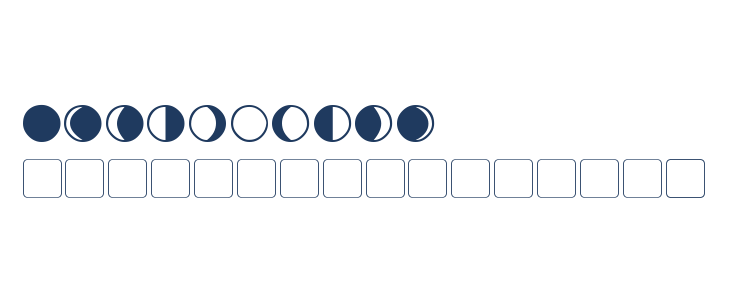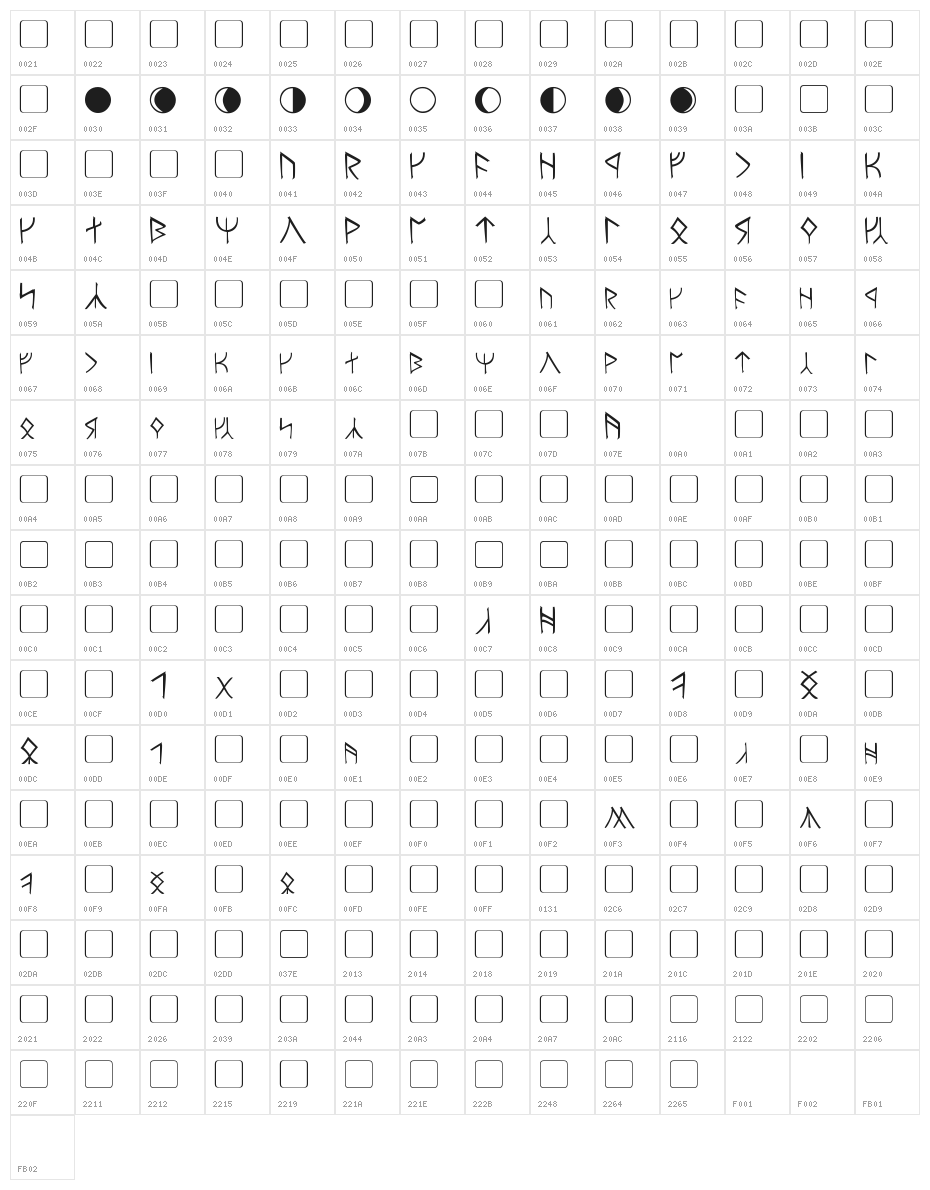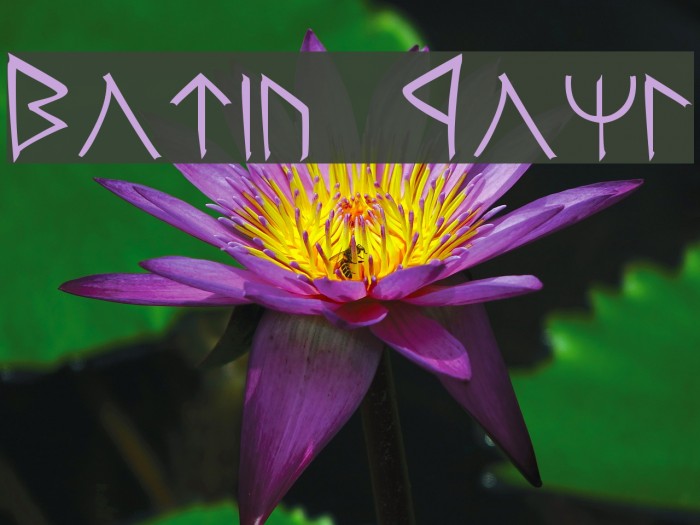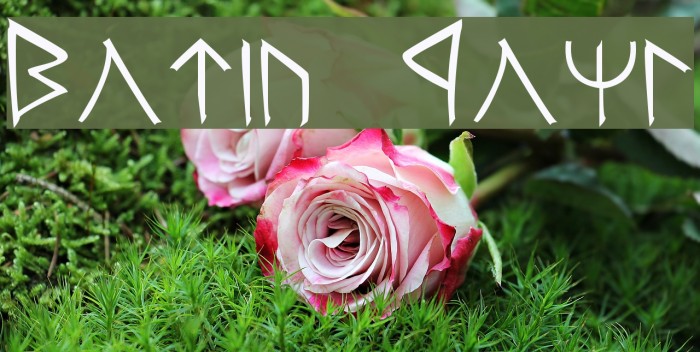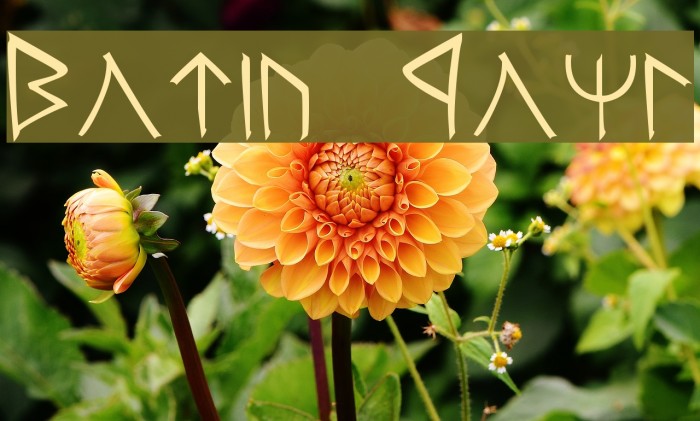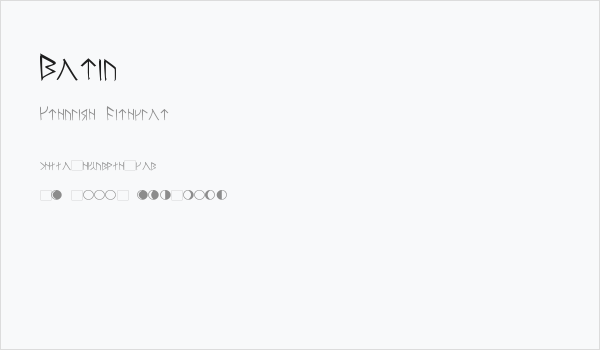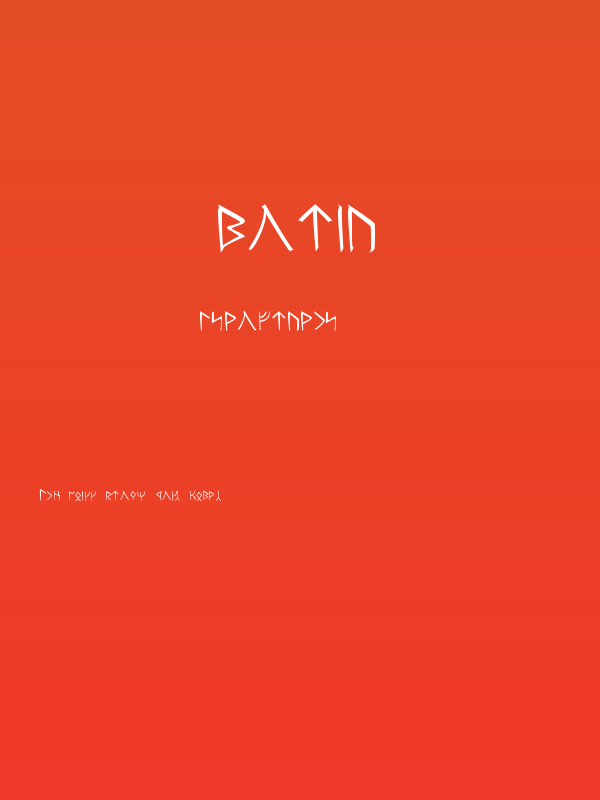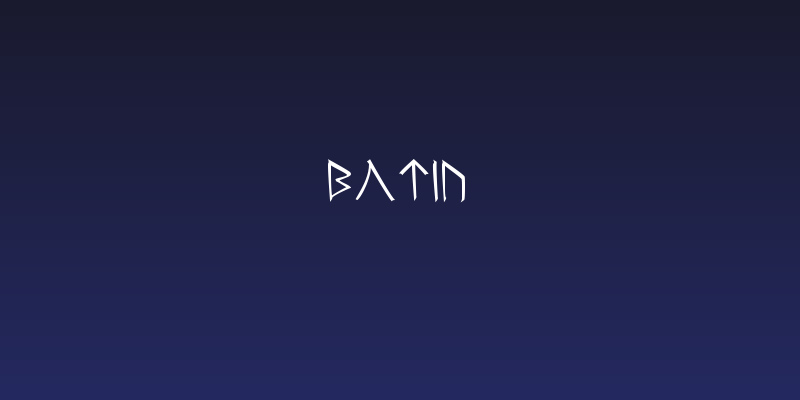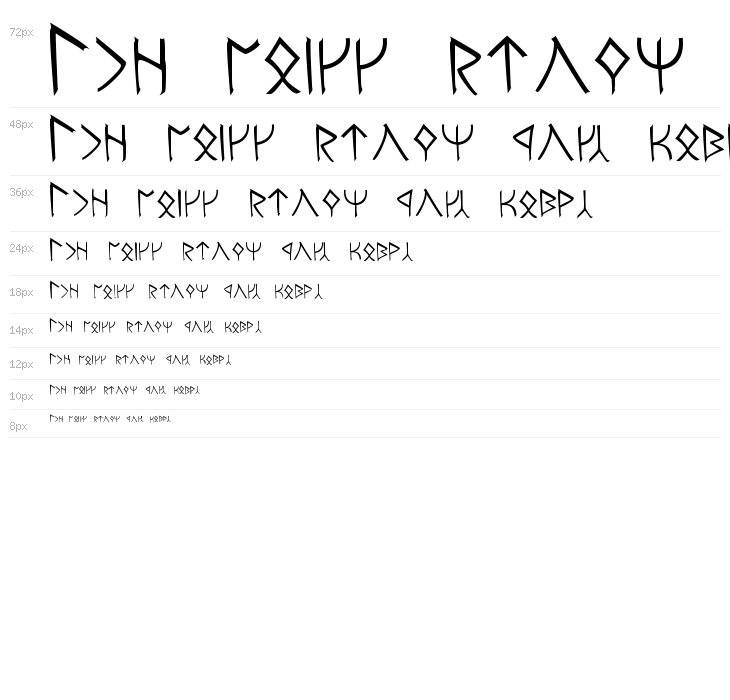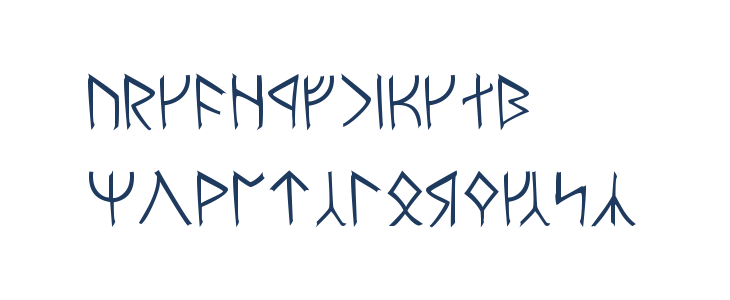
Moria Font
Moria Description
This font features a unique, angular design reminiscent of ancient runic alphabets. Each character is crafted with sharp, geometric lines that evoke a sense of mystery and antiquity. The style is consistent across both uppercase and lowercase letters, maintaining a cohesive look. The characters are slightly condensed, giving a compact appearance that enhances the font's enigmatic feel. The overall design is decorative, making it suitable for projects that require a touch of fantasy or historical ambiance. The font's distinctiveness makes it ideal for creative uses where a bold, thematic statement is desired.
| Use Case | Logos, Headlines, Thematic designs |
| Proposed Projects | Ideal for fantasy-themed projects, game design, book covers, or any creative work requiring a mystical or historical touch. |